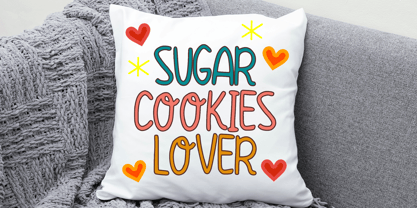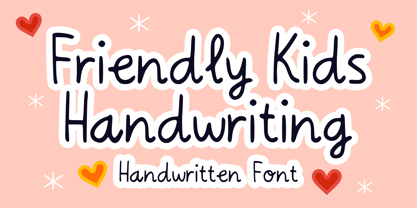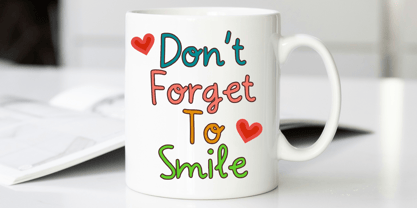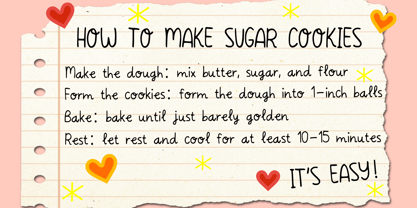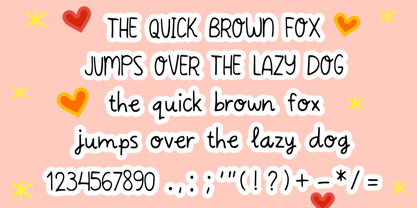
Friendly Kids Handwriting
by Mvmet
The Friendly Kids Handwriting Font Family was designed by Gabriel Valentinus and published by Mvmet. Friendly Kids Handwriting contains 1 styles. More about this family
Friendly Kids Handwriting typeface is a cheerful handwritten font that radiates warmth and friendliness through every stroke. Its casual yet clear letterforms resemble notes jotted down with joy, capturing the charm of handwriting while ensuring perfect readability. Each curve of Friendly Kids Handwriting flows with personality, conveying playfulness and sincerity that makes words feel alive. This typeface is ideal for children’s books, greeting cards, journals, stickers, social media posts, and any design that requires a heartfelt touch. It transforms ordinary text into something personal and inviting, allowing your designs to express creativity and emotion effectively.